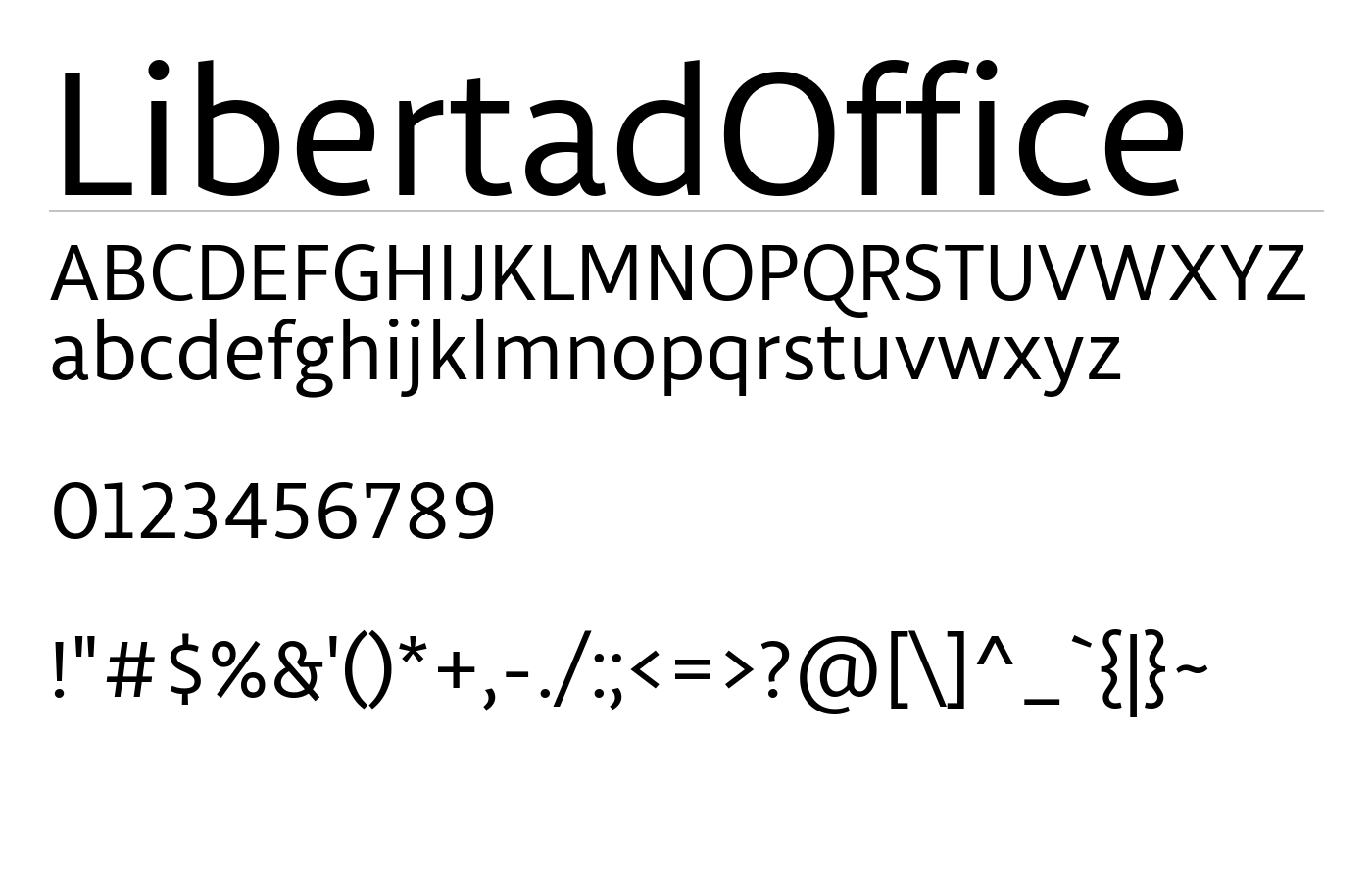
Libertad Office is a clean and modern sans serif font with a regular weight and balanced proportions, offering excellent readability. Its open letterforms and moderate x-height give it a friendly yet professional appearance, making it ideal for office documents, websites, and user interfaces where clarity and simplicity are essential. This versatile font works well in both body text and headings, providing a fresh and approachable tone.
Libertad Office
About Libertad Office
| Font family | Libertad Office |
| Languages supported | Latin, Greek, Thai, Symbols |
| Designer | Fernando Diaz |